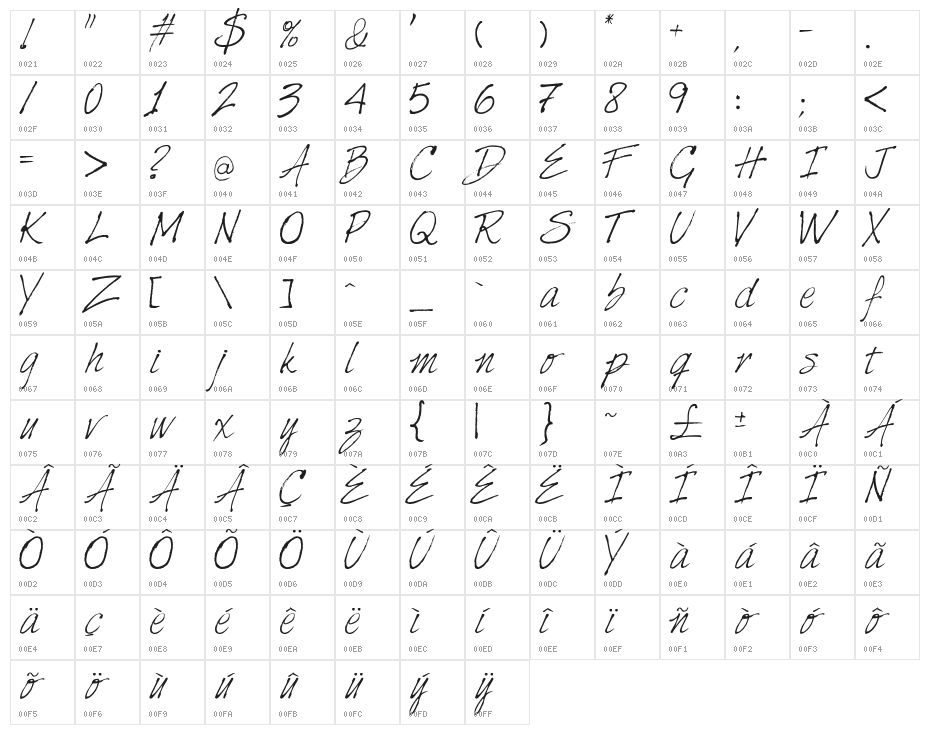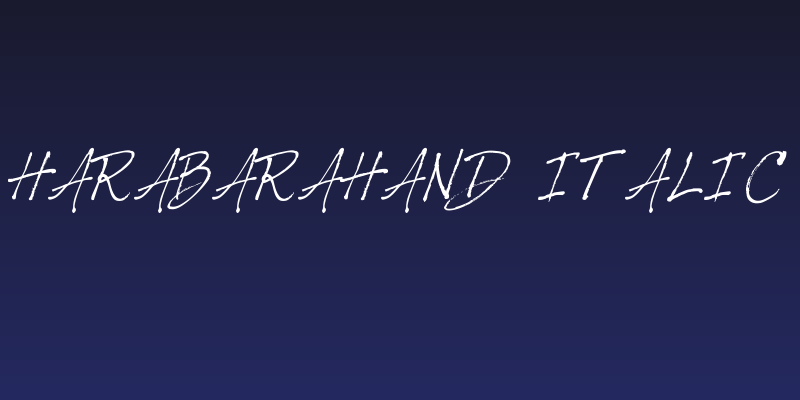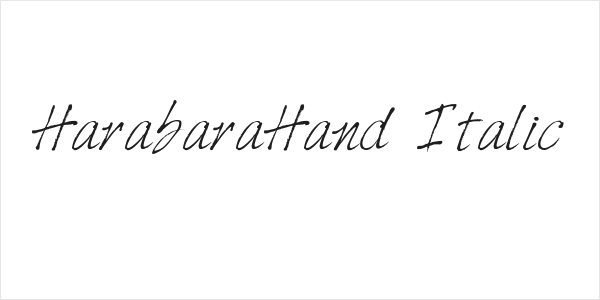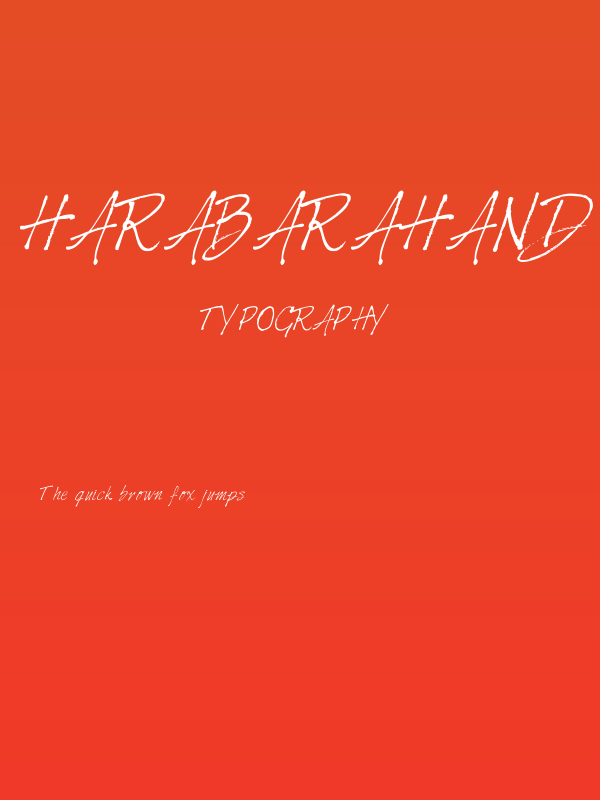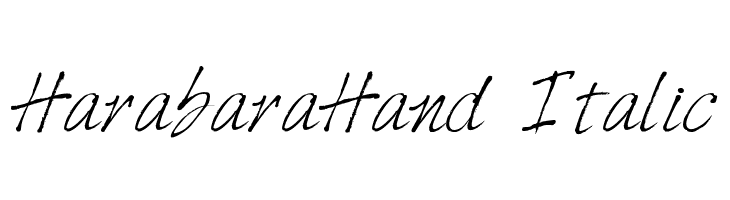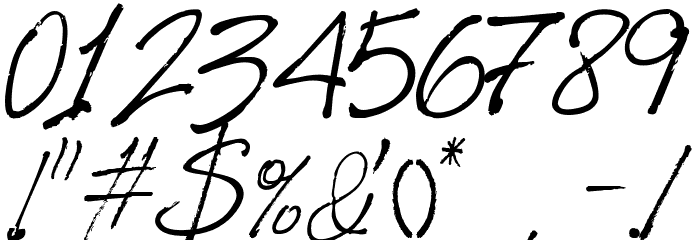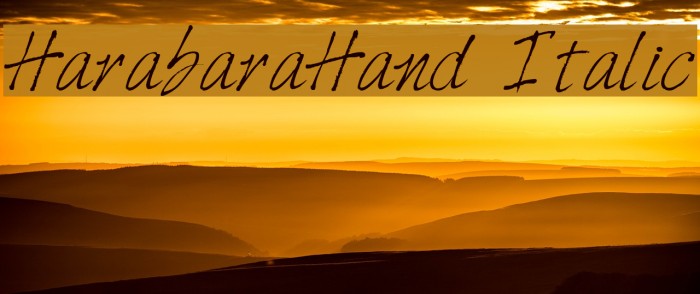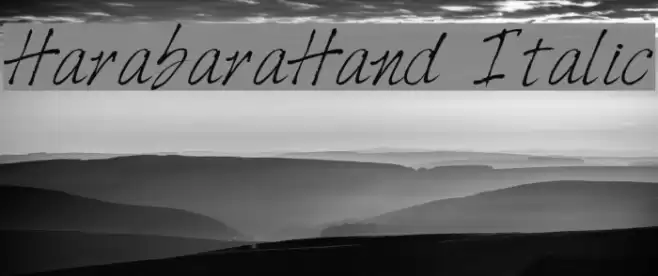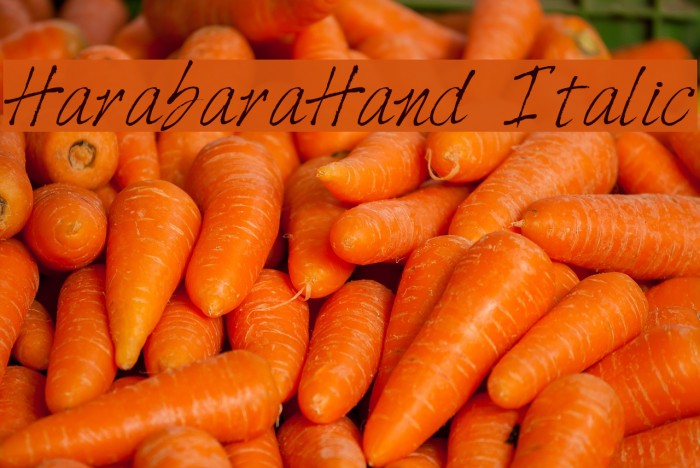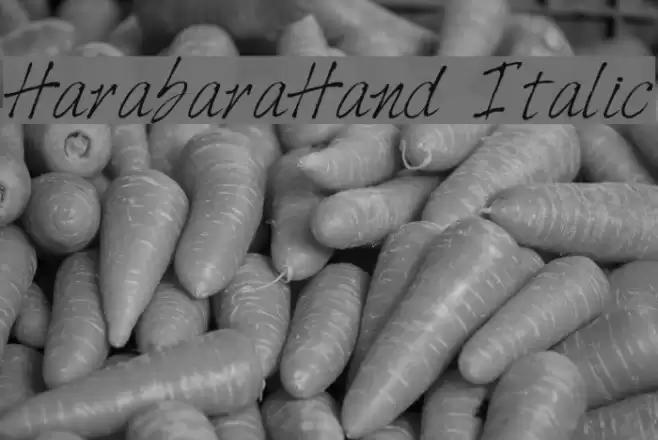
HarabaraHand Italic Font
✎ Calligraphic
HarabaraHand Italic Description
This font exhibits a dynamic and fluid handwritten style, characterized by its slanted, italicized form. The strokes are smooth and continuous, giving it a natural, flowing appearance. Each letter is distinct yet harmonizes well with the others, creating a cohesive look. The uppercase letters are bold and prominent, while the lowercase letters maintain a consistent size and shape, enhancing readability. The numerals are clear and well-defined, matching the overall aesthetic of the alphabet. Special characters are integrated seamlessly, maintaining the font's elegant and artistic flair.
| Use Case | Logos, Invitations, Artistic projects |
| Proposed Projects | Ideal for personal branding, invitations, greeting cards, and artistic projects that require a personal touch. |